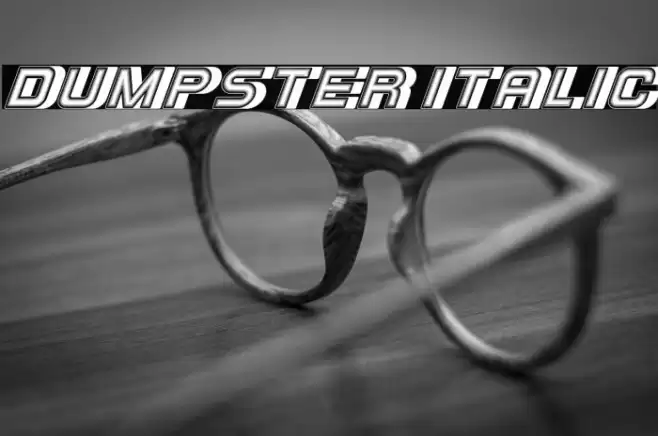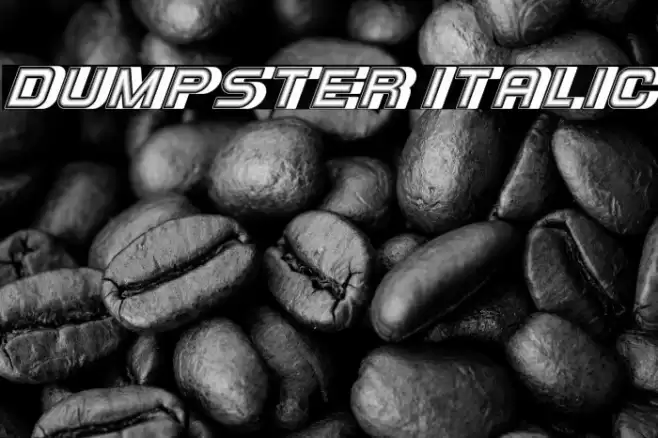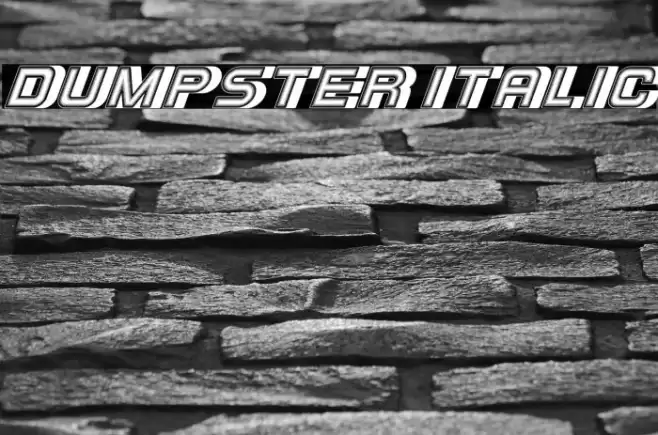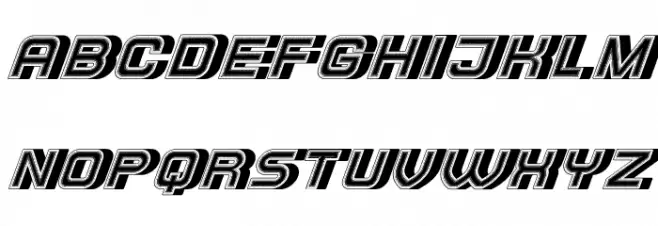
Dumpster Italic Font
Dumpster Italic Description
This font features a bold, italicized style with a distinct three-dimensional effect created by layered outlines. The characters are uppercase, with a strong geometric influence and a slight slant to the right, enhancing the italic appearance. The boldness of the font is accentuated by the thick strokes and the shadow-like outlines, giving it a dynamic and impactful presence. The spacing between characters is relatively tight, which contributes to a cohesive and compact look. This font is particularly suited for attention-grabbing designs due to its striking and modern aesthetic.
Bold, italicized font with a three-dimensional, geometric style from Uncategorized fonts.
- Font: Dumpster Italic
- Proposed Projects: Ideal for posters, headlines, logos, and branding materials that require a bold and modern look.
- Character Spacing: Tight